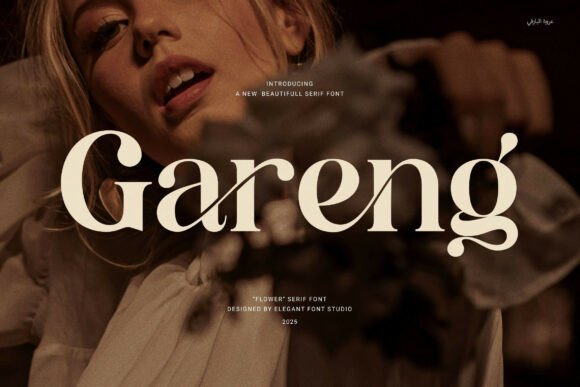
The Perfect Blend of Style and Clarity: Discovering the Gareng Font
You’re staring at a blank screen, trying to find the perfect font to elevate your latest design project. You’ve scoured the internet for hours, scrolling through endless options, but nothing seems to capture the essence of your vision. That’s when you stumble upon Gareng, a modern serif typeface that effortlessly combines clean structure with classic beauty.
As a designer, you understand the importance of choosing a font that not only looks great but also delivers clarity and consistency. That’s exactly what Gareng Font offers – a versatile form that adapts seamlessly to various styles, ensuring a cohesive visual identity for your brand. With its functional ligatures and smooth curves, Gareng Font is an ideal choice for designers who value style, clarity, and elegance.
- Unique Characteristics: Gareng Font features a unique blend of modern and minimalist design elements, with a focus on legibility and readability, making it an excellent choice for digital products and interfaces.
Gareng Font Review
Overall, I’d say Gareng Font is an interesting and unique addition to any digital design project. It’s got a certain charm to it that could really make your content stand out. ✨
- Uniqueness: Gareng Font is not your average font, and that’s what makes it so appealing. It’s got a distinct character that sets it apart from other fonts.
- Legibility: Despite its quirky nature, Gareng Font is still pretty easy to read, especially at larger sizes.
- Style versatility: Gareng Font works well in a variety of design contexts, from headlines to body text.
- Limited font sizes: While Gareng Font looks great at larger sizes, it can become a bit fuzzy and hard to read at smaller sizes.
- Not ideal for body text: Due to its unique character and style, Gareng Font may not be the best choice for large blocks of body text.
Overall, I’d recommend Gareng Font for projects where you want to add a bit of personality and whimsy to your design. Just be aware of its limitations and use it thoughtfully. ⚠️
Experiment with different font sizes and styles to create visually appealing designs. Use Gareng Font in conjunction with other creative assets, such as graphics and images, to add depth and interest to your designs.
Gareng Font is well-suited for use in creative projects, such as posters, flyers, and business cards. Its unique style and versatility make it an ideal choice for designers looking to add a touch of personality to their work.
Alternatives to Gareng Font for Designers
Raleway
Raleway is a popular sans-serif font that is highly legible and elegant. It is suitable for use in titles, headings, and body text where a clean and modern look is desired. Raleway is a more traditional and classic font compared to Gareng Font, which has a more playful and futuristic feel.
Montserrat is a geometric sans-serif font that is highly versatile and suitable for use in a wide range of applications. It is particularly well-suited for use in urban and modern designs where a strong, bold feel is desired. Montserrat is more geometric and structured compared to Gareng Font, which has a more organic and hand-drawn feel.
Open Sans is a clean and modern sans-serif font that is highly legible and suitable for use in a wide range of applications. It is particularly well-suited for use in body text where a clear and easy-to-read font is desired. Open Sans is more straightforward and simple compared to Gareng Font, which has a more unique and expressive feel.